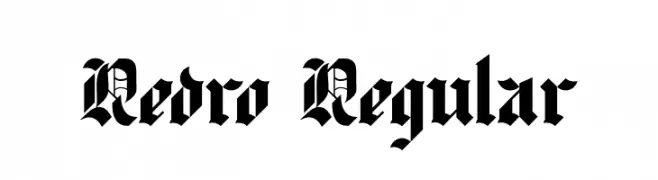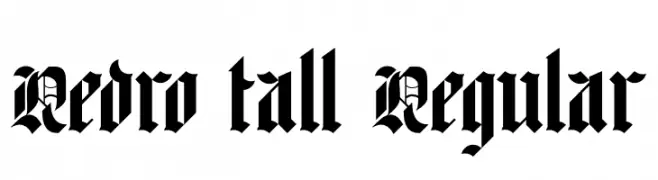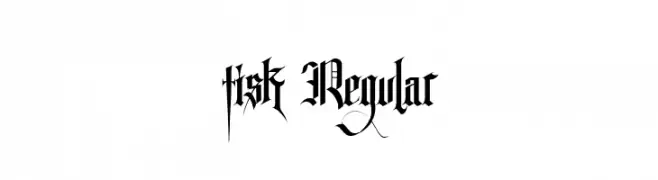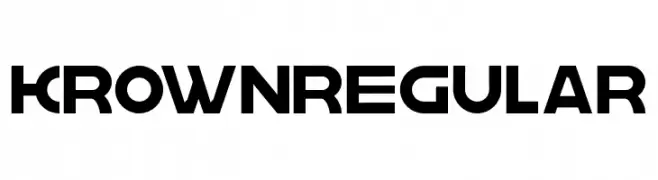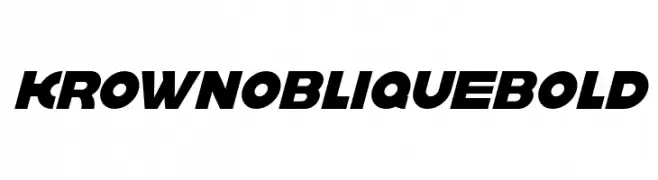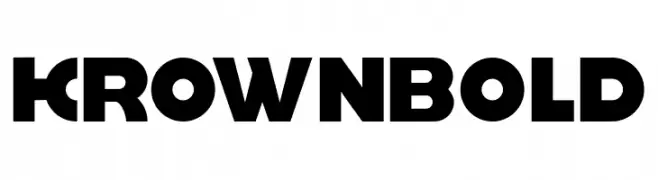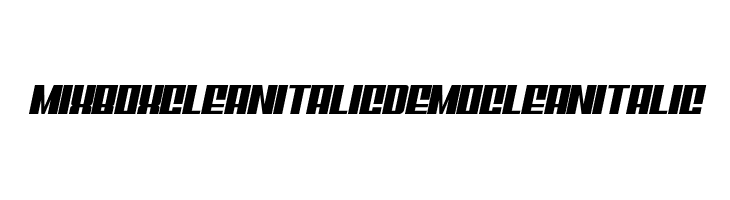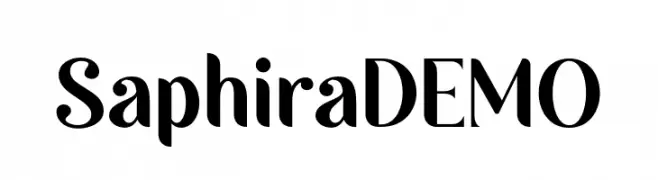
A bold Blackletter font with angular strokes and intricate detailing.
A bold, gothic blackletter font with intricate and angular letterforms.
A decorative blackletter font with intricate, ornate letterforms and high contrast.
A bold, modern font with a geometric and impactful design.
A bold, oblique font with a modern, dynamic style and tight character spacing.
A bold, geometric font with a modern and impactful design.
A sleek, modern oblique font with thin, elongated letterforms.
A modern, geometric font with high contrast and a bold, condensed style.
A bold, oblique font with a modern and dynamic style.
A versatile font with elegant curves and distinct serifs, suitable for various applications.